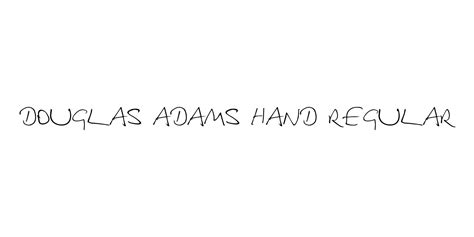
Douglas Adams Font . Released in 2001 by divide by zero and licensed for personal and commercial. About (caps=lower, some fudged punctuation) — douglas adams, one of my favorite authors, died from a heart attack.
Douglas Adams Hand Font